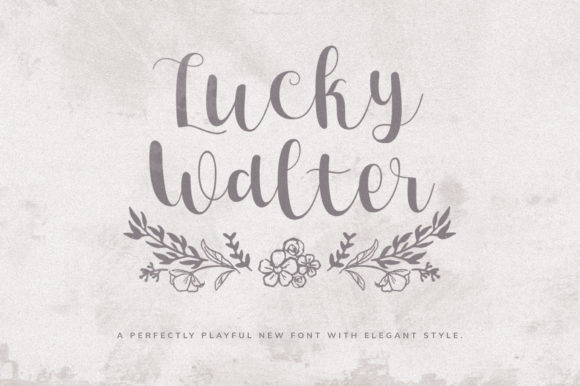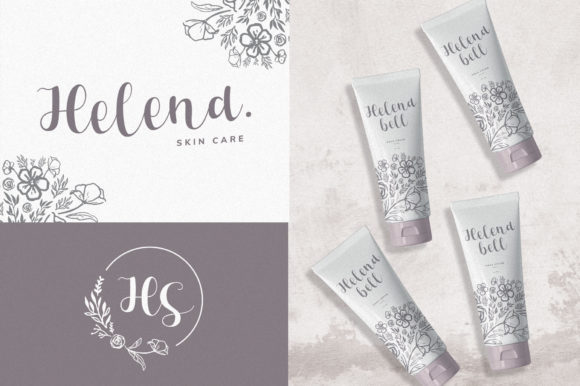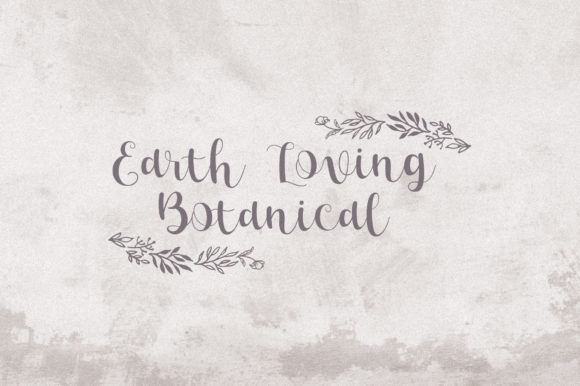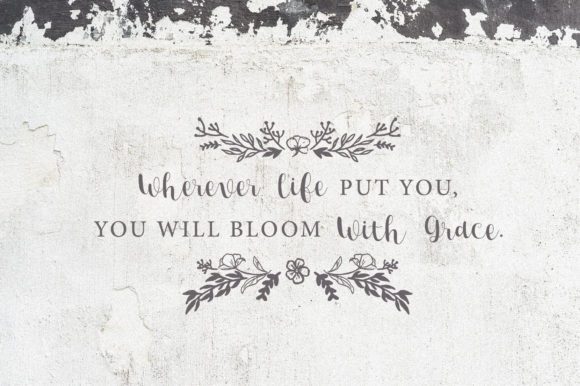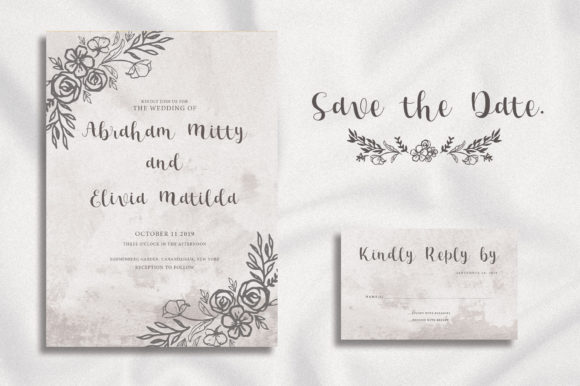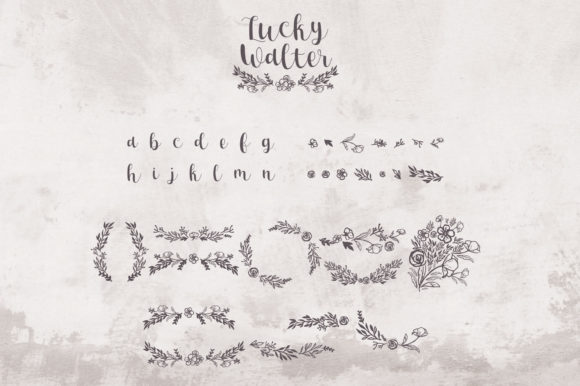
Lucky Walter Font
About Lucky Walter Font
Lucky Walter is a free-floating and smooth script with an incredibly organic approach to lettering. Get inspired by its sweet look!